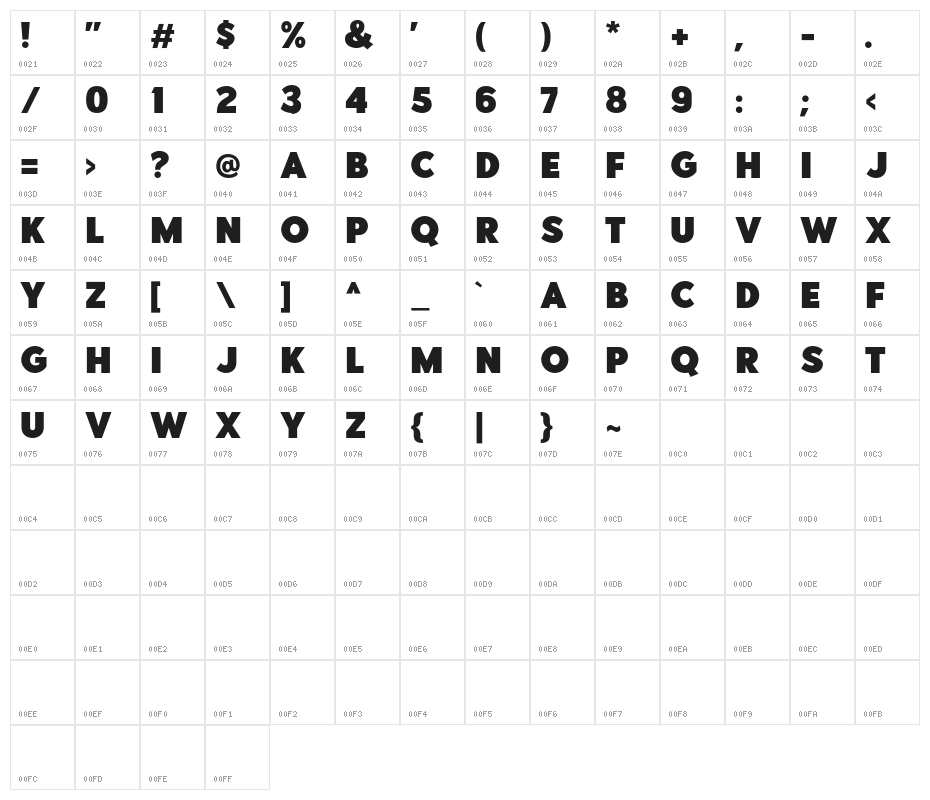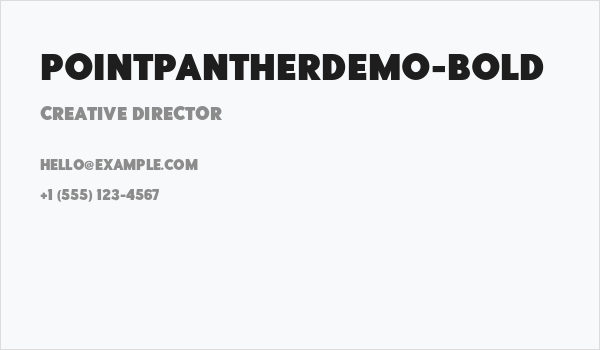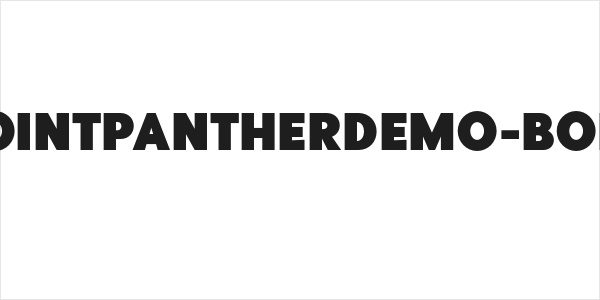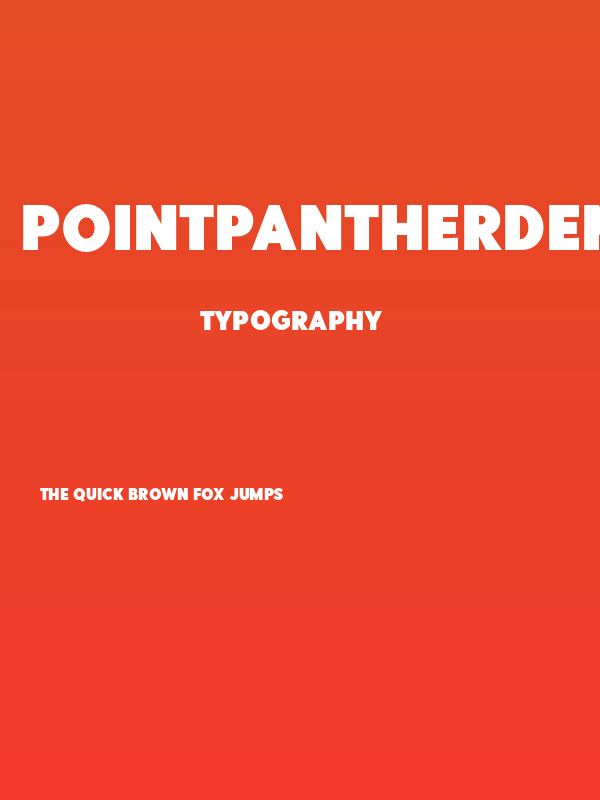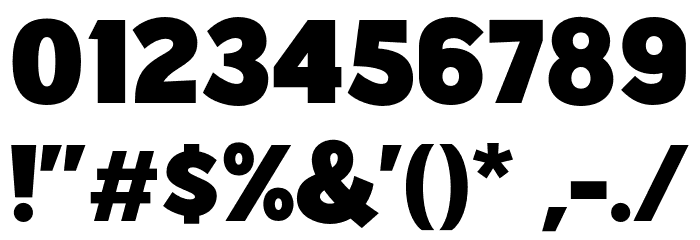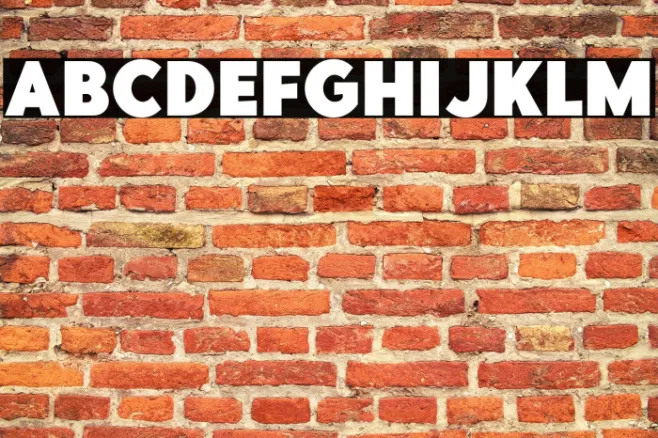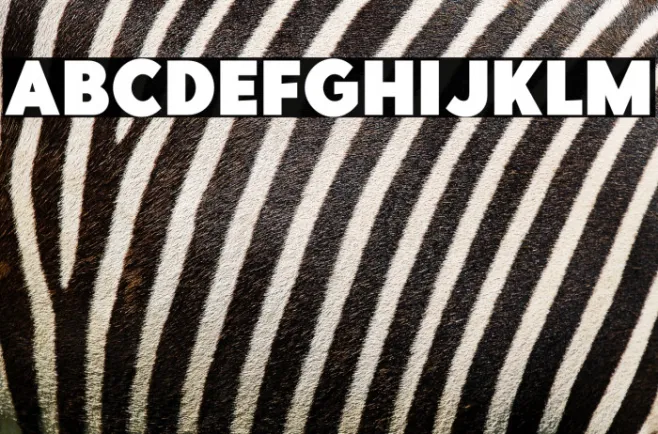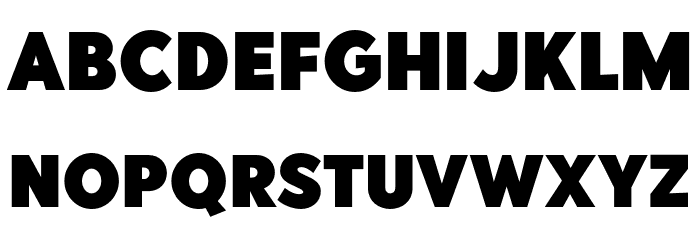
PointPantherDEMO-Bold Font
PointPantherDEMO-Bold Description
This font features a bold and impactful design, characterized by thick, uniform strokes that convey strength and modernity. The uppercase and lowercase letters maintain a consistent width, providing a balanced and cohesive appearance. The numerals are equally bold, ensuring readability and emphasis. Special characters are designed with the same robust style, making them stand out effectively. The overall look is clean and straightforward, ideal for making a strong visual statement.